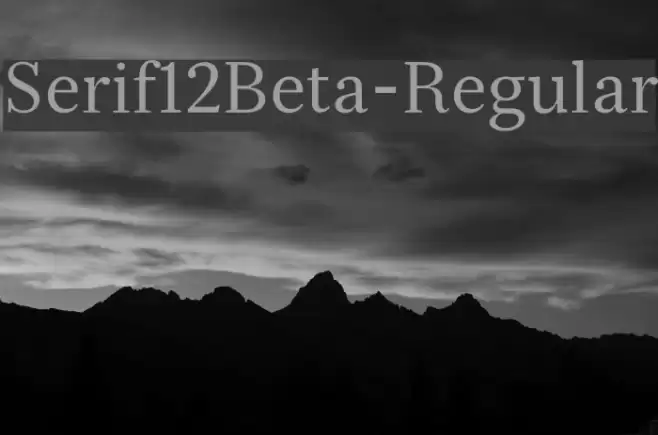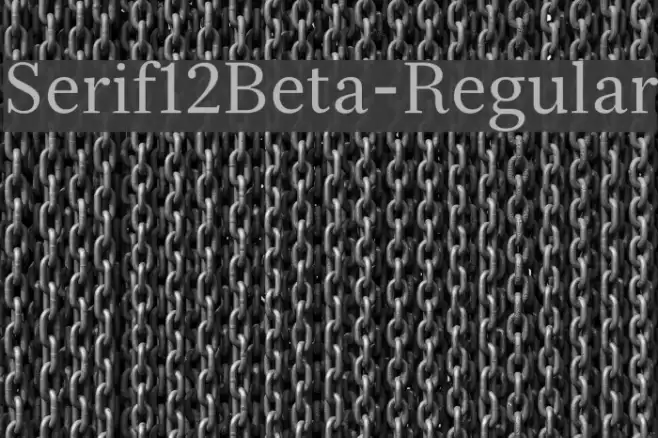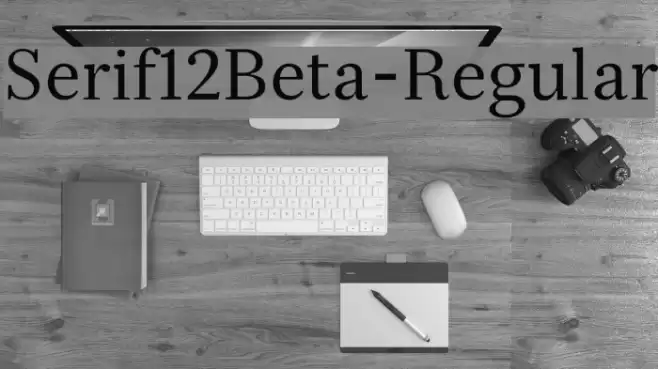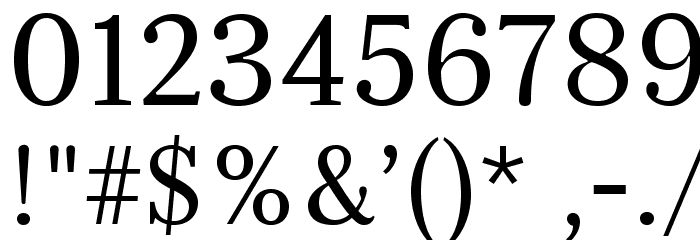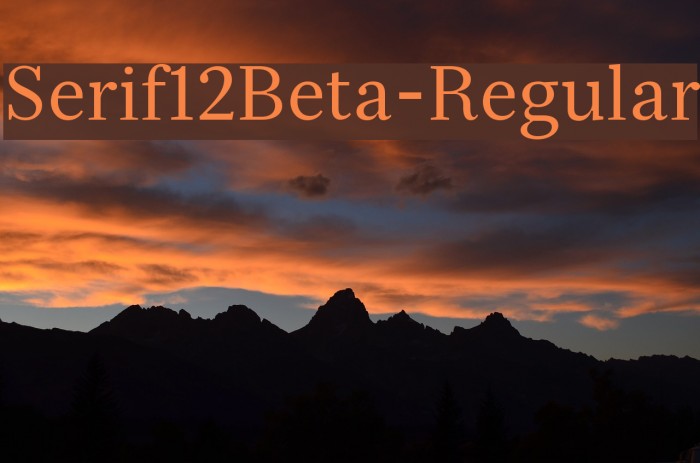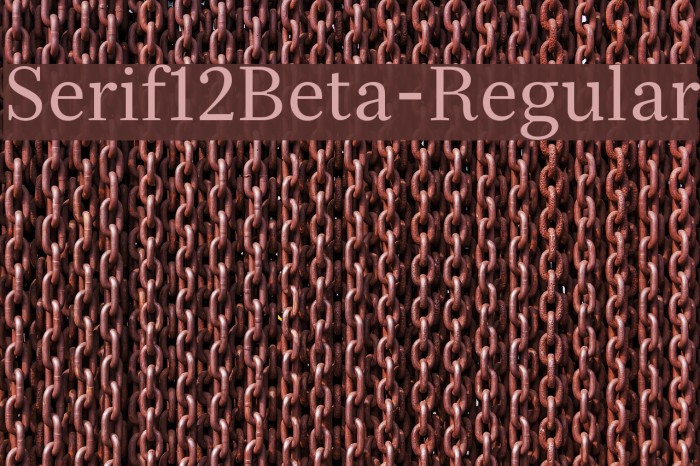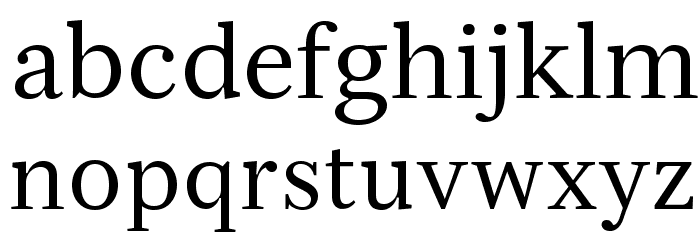
Serif12Beta-Regular
This font features a classic serif style with elegant and refined strokes. The serifs are pronounced, providing a traditional and sophisticated appearance. The uppercase letters are well-proportioned, with a slight contrast in stroke thickness that adds to the readability and aesthetic appeal. The lowercase letters maintain a consistent style, offering a harmonious blend with the uppercase. Numbers are clear and distinct, ensuring legibility. Special characters are crafted with attention to detail, complementing the overall design. This font is suitable for projects requiring a touch of elegance and formality.
A classic serif font with elegant strokes and pronounced serifs.
- Proposed Projects: Ideal for use in editorial design, book covers, formal invitations, and branding materials that require a traditional and sophisticated look.
- Category: Serif
- Overall Style: Classic